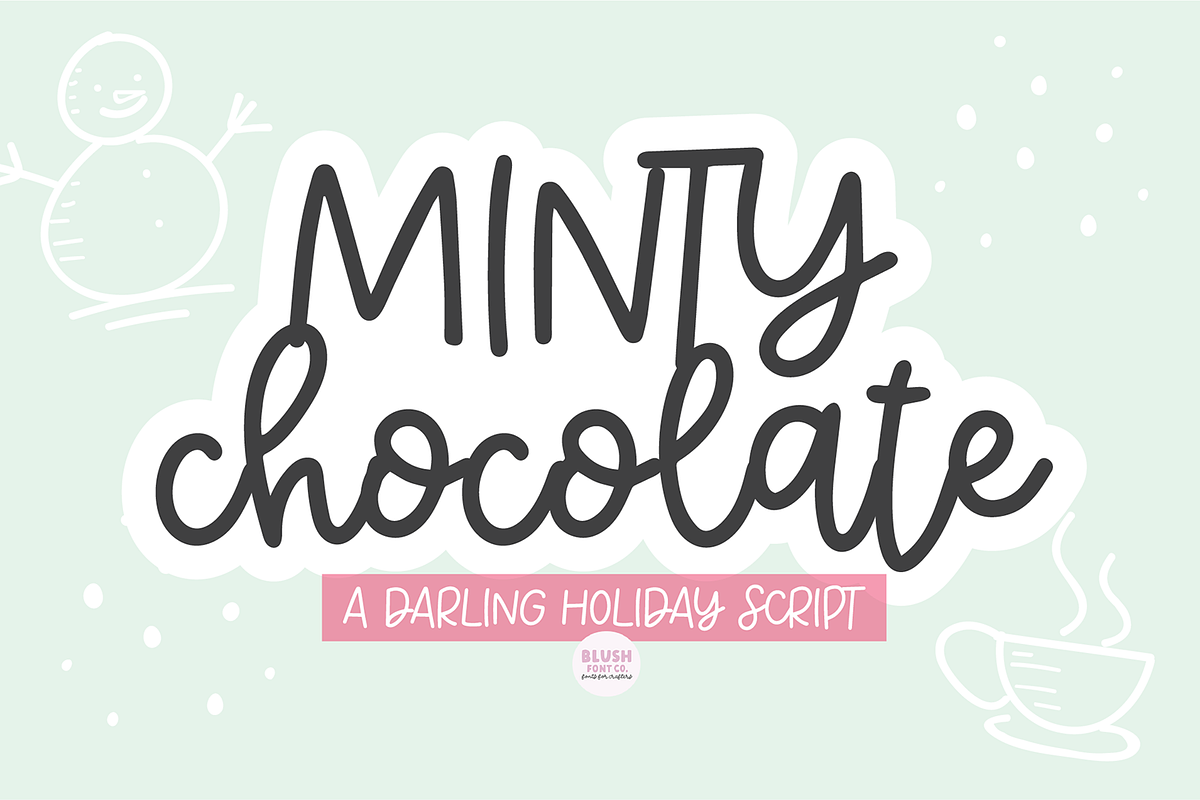
MINTY CHOCOLATE Christmas Script Font Free Download is a festive, playful, and elegant handwritten script typeface designed to add a touch of warmth and cheer to your Christmas-themed designs. With its smooth, flowing letterforms and whimsical charm, this font is perfect for holiday cards, invitations, gift tags, seasonal branding, and festive decorations.
Using the MINTY CHOCOLATE Christmas Script Font Free Download adds a cozy, joyful feel to your typography. Whether you’re designing holiday greeting cards, crafting personalized gifts, or creating social media graphics for the season, this font brings a delightful and festive spirit to your projects.